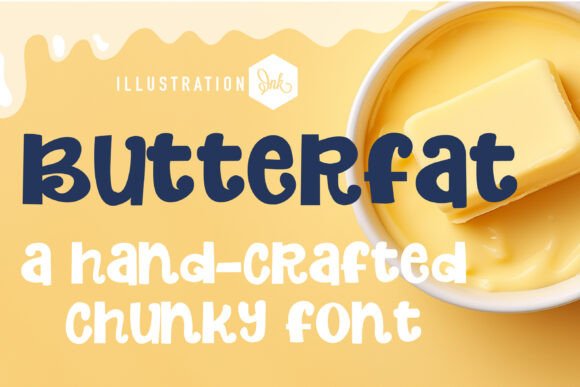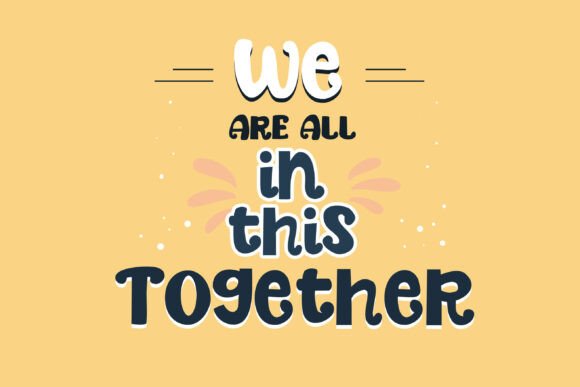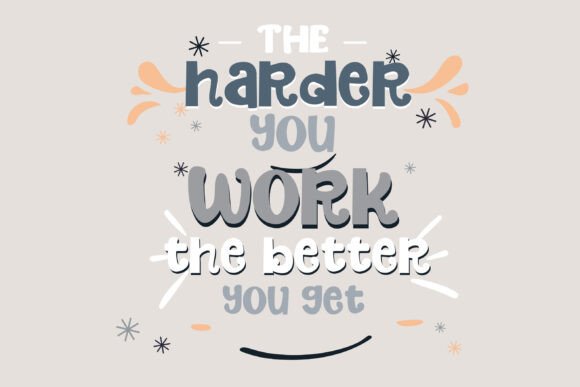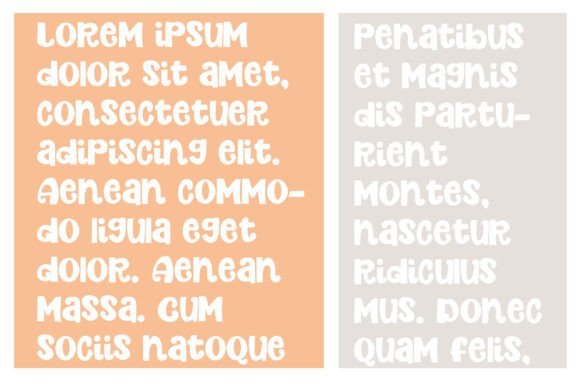
Butterfat Font: A Cute Handwritten Serif Font with Chicks!
About the Butterfat Font
Let us introduce you to Butterfat Font, where timeless design meets modern craftsmanship. This hand-crafted font is a whimsical sans serif with chunky, thick, whimsical, lettering.
Butterfat Font’s playful, chunky style is ideal for headlines, short text blocks on posters or packaging, and branding elements requiring a friendly, approachable feel. It works particularly well for children’s products, food brands, and projects emphasizing warmth and approachability. However, its thick strokes and informal nature make it unsuitable for body text or UI elements where readability is paramount.
Pairing Butterfat with a clean sans-serif like Open Sans for body copy creates a strong visual hierarchy. For a more sophisticated touch, consider a classic serif such as Garamond or a geometric sans-serif like Futura. These pairings provide a counterpoint to Butterfat’s whimsical character, enhancing its impact without overwhelming the design.
The overall personality of Butterfat is undeniably cheerful and informal, conveying a sense of approachability and fun. Its bold forms ensure high visibility, making it a strong choice for grabbing attention.
Butterfat Font Usage Examples
Butterfat Font Example